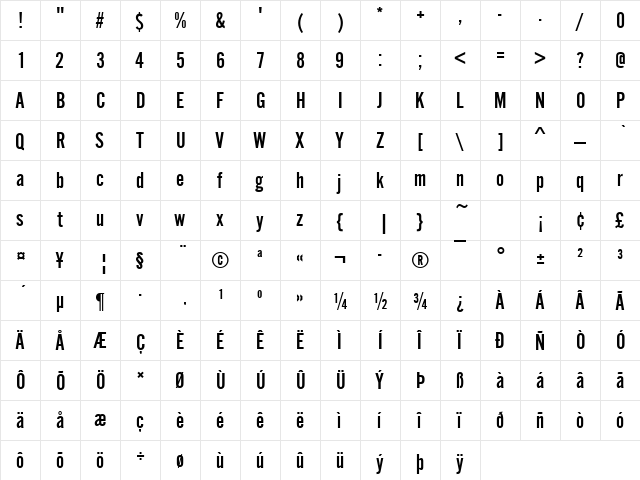
AlternateGotNo2 Regular
Design Context for AlternateGotNo2 Typeface
AlternateGotNo2 is a composed and adaptable typeface that performs quietly and consistently across a wide range of design contexts.